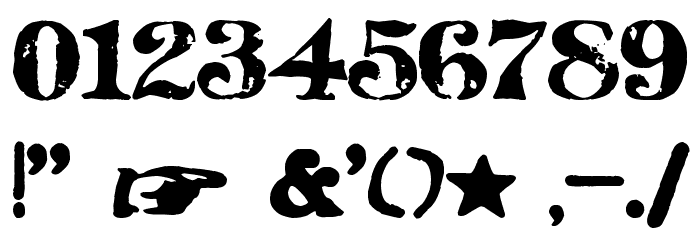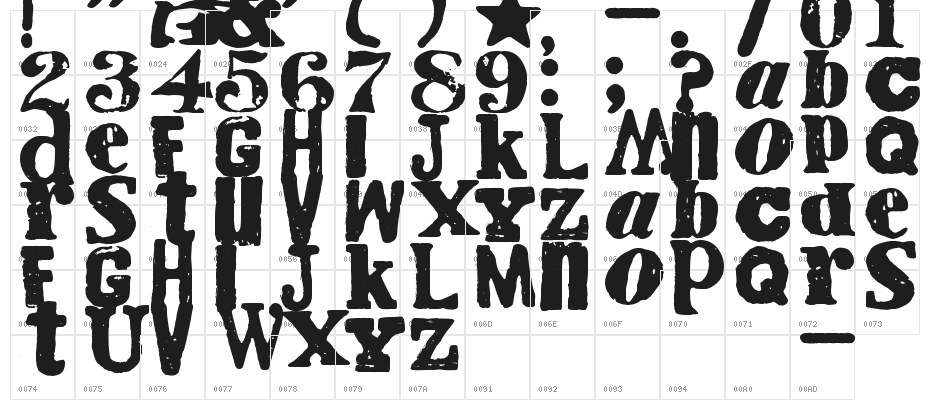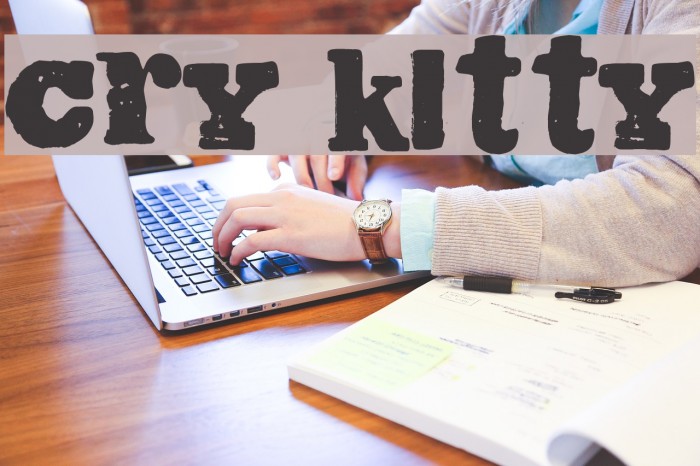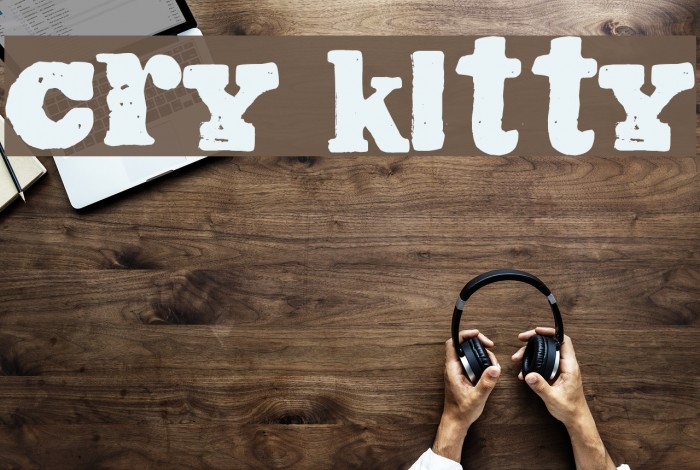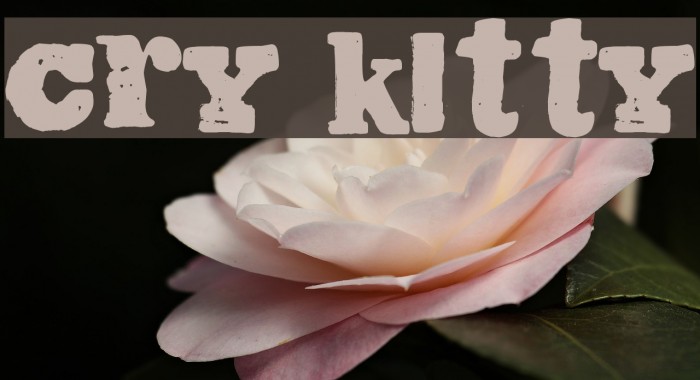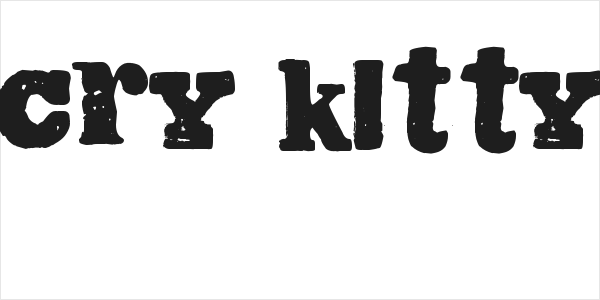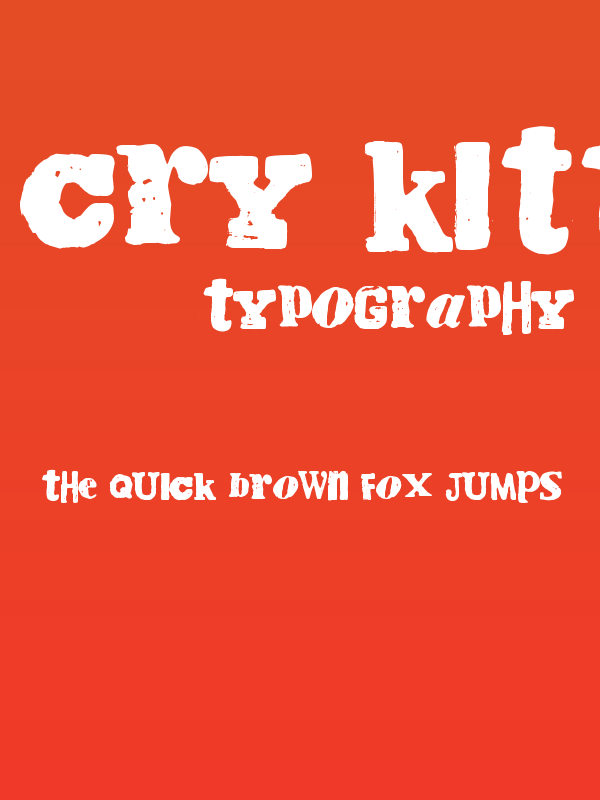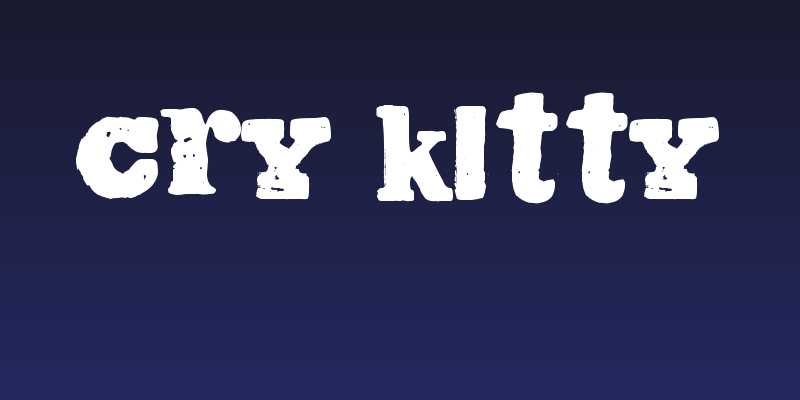
Cry Kitty Font
Cry Kitty Description
This font features a bold, distressed style with a grunge aesthetic. The characters have a rough, textured appearance, giving them a worn and vintage feel. The uppercase and lowercase letters maintain a consistent design, with slightly exaggerated serifs and varying stroke widths that add to the font's rugged charm. The numerals and special characters follow the same distressed pattern, making them cohesive with the rest of the typeface. This font is ideal for projects that require a bold statement with a touch of nostalgia or edginess.
| Overall Style | Vintage, Grunge |
| Proposed Projects | Perfect for album covers, posters, vintage-themed designs, and branding that requires a bold, edgy look. |